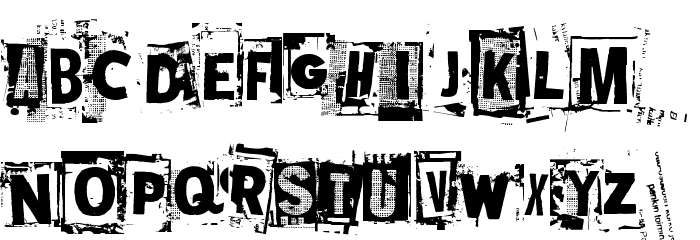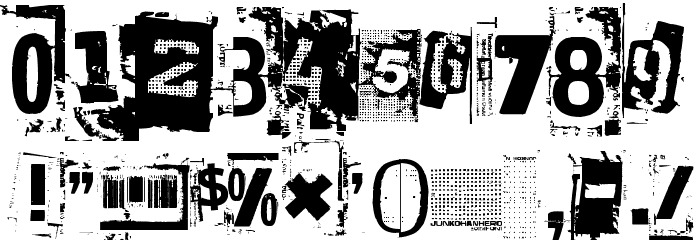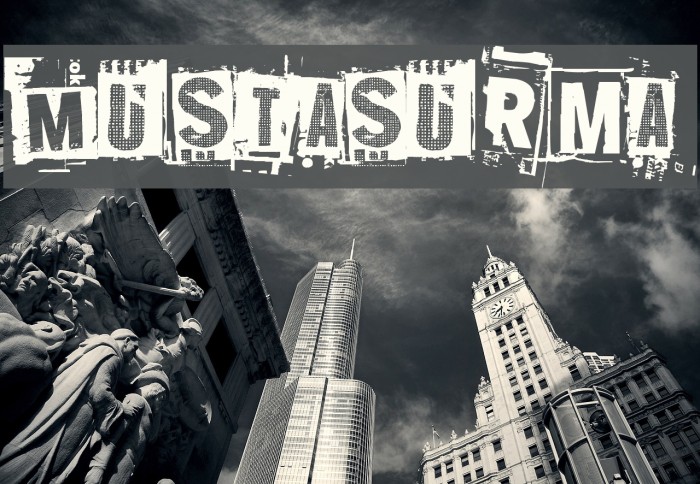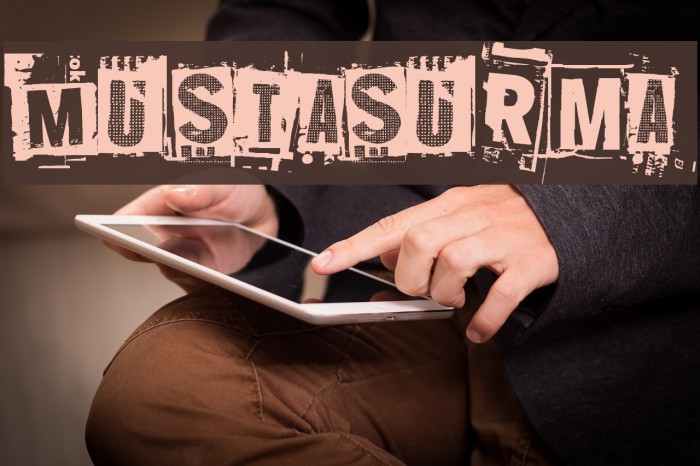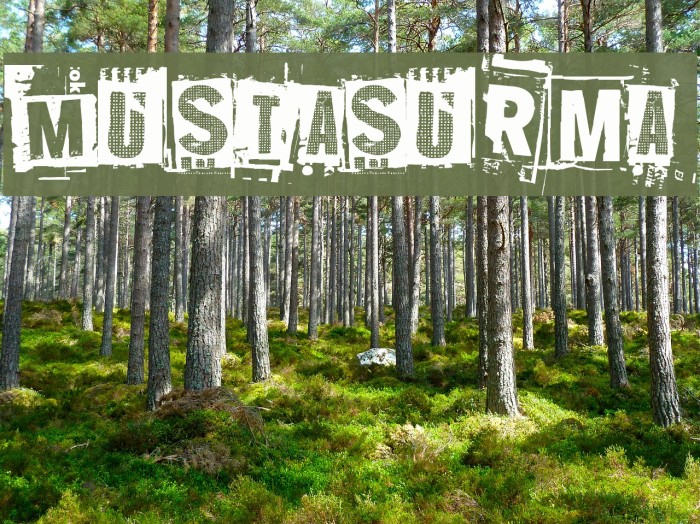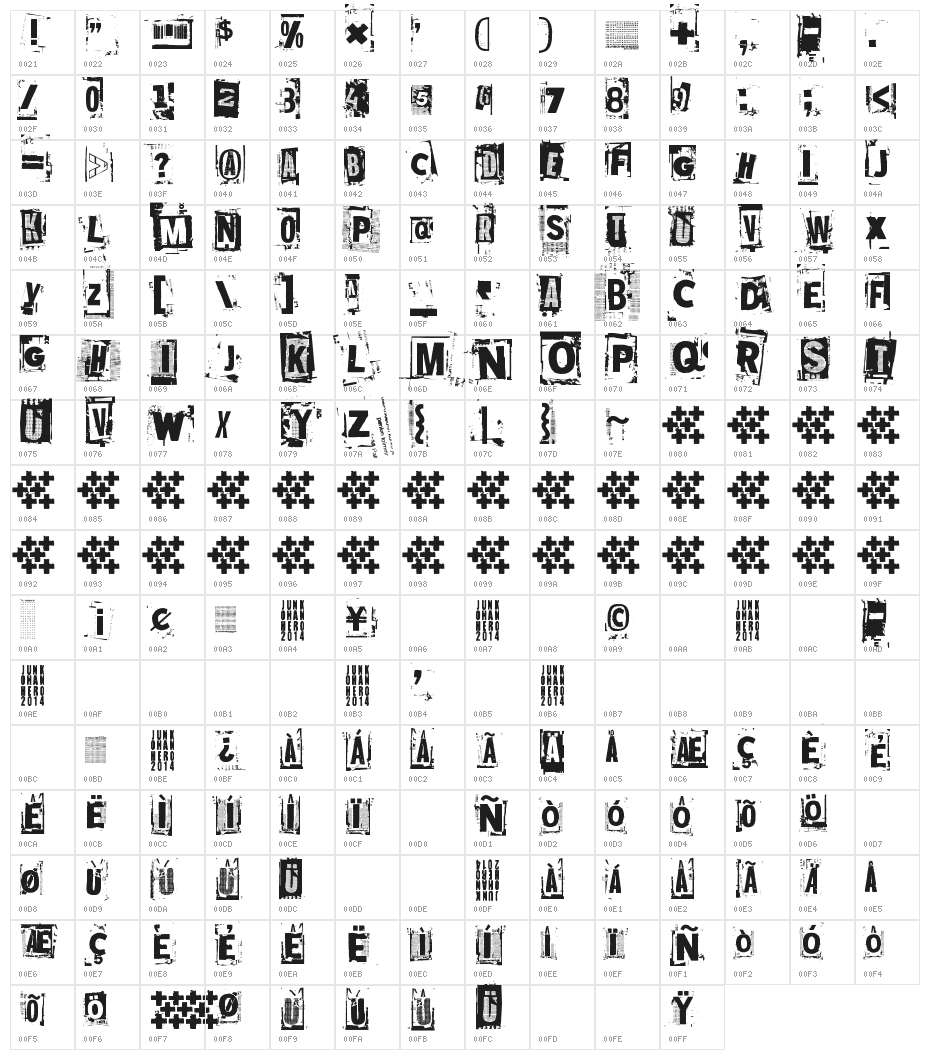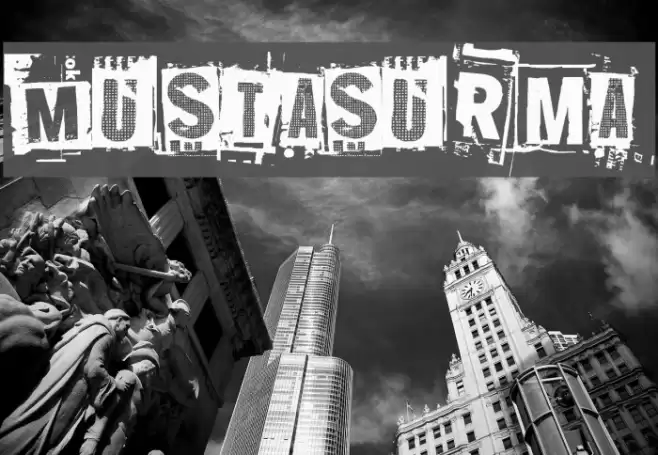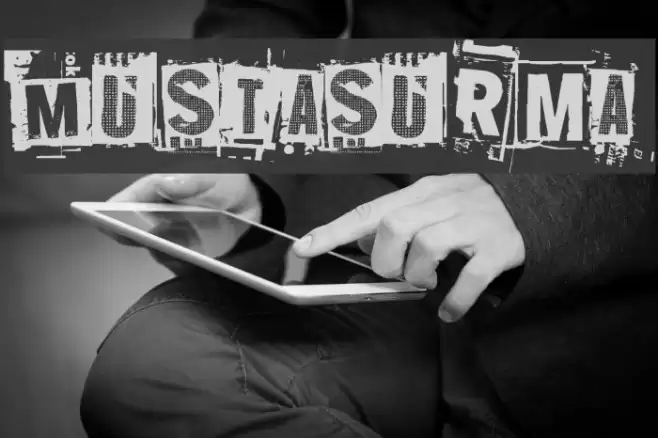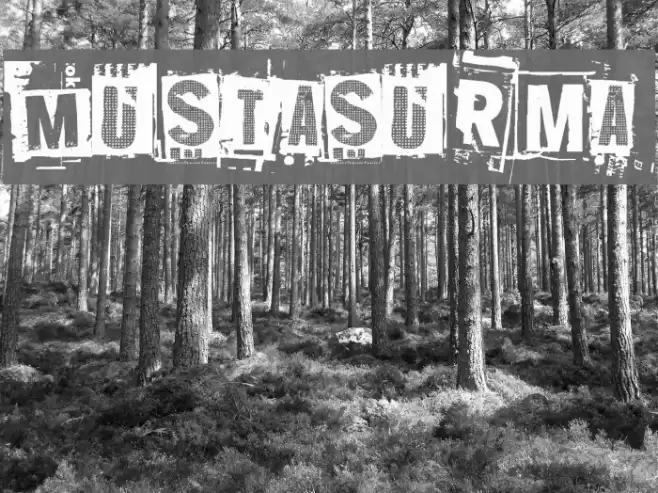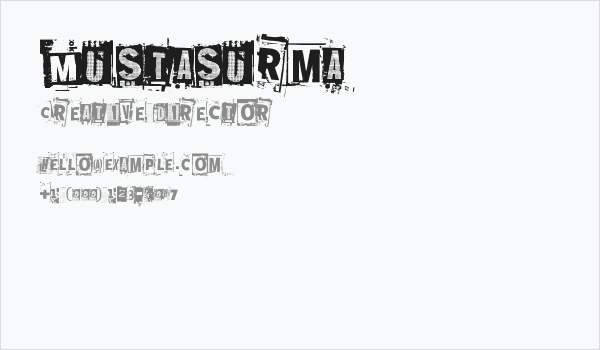
Mustasurma Font
This font exudes a gritty, distressed aesthetic reminiscent of ransom notes or punk rock album covers. Each character appears as if it has been cut from a newspaper or magazine, featuring a mix of bold, blocky letters with rough, uneven edges. The texture is highly detailed, with visible imperfections and a grunge-like overlay that adds to its chaotic charm. The font's design is intentionally irregular, with varying sizes and orientations that create a sense of movement and energy. This style is perfect for projects that require a rebellious, edgy look, such as music posters, zines, or alternative branding.
A gritty, distressed font with a ransom note style and grunge texture.
- Font: Mustasurma
- Proposed Projects: Ideal for music posters, zines, alternative branding, and edgy graphic designs.
- Overall Style: Grunge, Punk, Edgy
- Use Case: Headlines, Posters, Branding